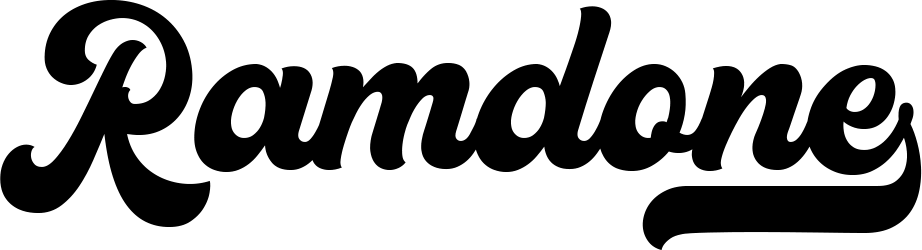
Ramdone Script Font
Here is a unique old-school font available for free of charge. This font with a classic mood is suitable for many different projects, for instance; postcards, magazines, movies, etc. Download it as soon as possible and create a mind-blowing outcome. If you want to get more like Ramdone Script, head over to RB now.